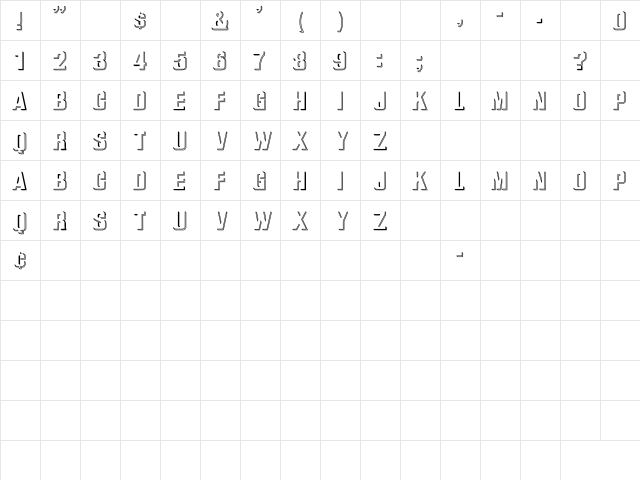
WhatA-Relief Hollow Regular
WhatA-Relief Hollow is a composed and adaptable typeface that performs quietly and consistently across a wide range of design contexts.